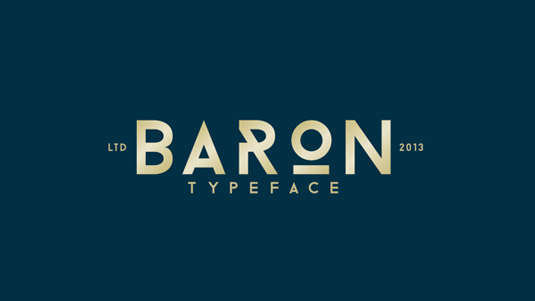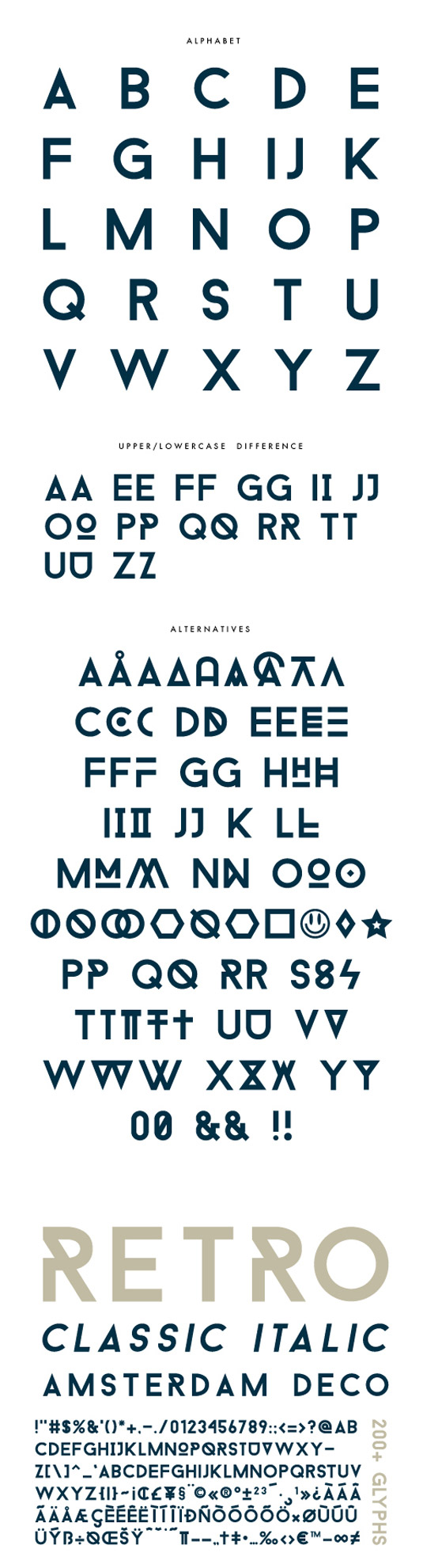
Font of the day: Baron
Baron by Frank Hemmekam
Today's font of choice Baron is a new design by 18-year-old graphc design student Frank Hemmekam. "Baron is an free uppercase display typeface inspired by the classic sans serif font families," he says of his design. "This typeface is, because of his many alternative options and weights, perfect for usage in posters/logotypes and headlines."